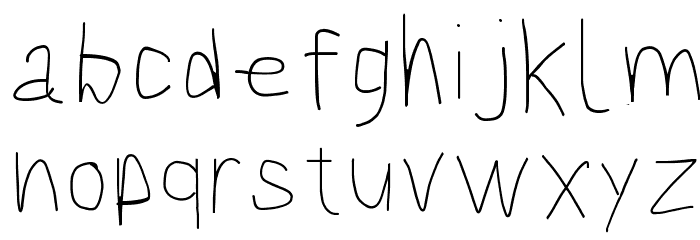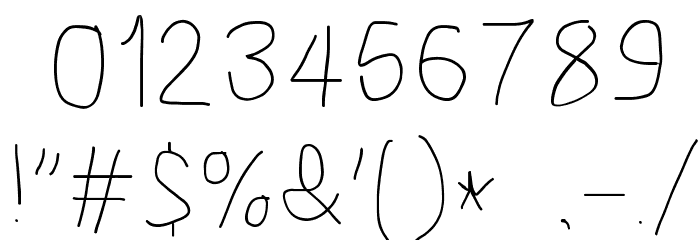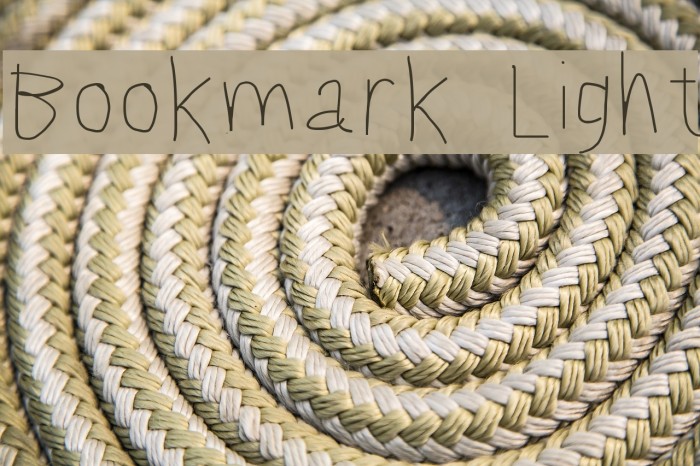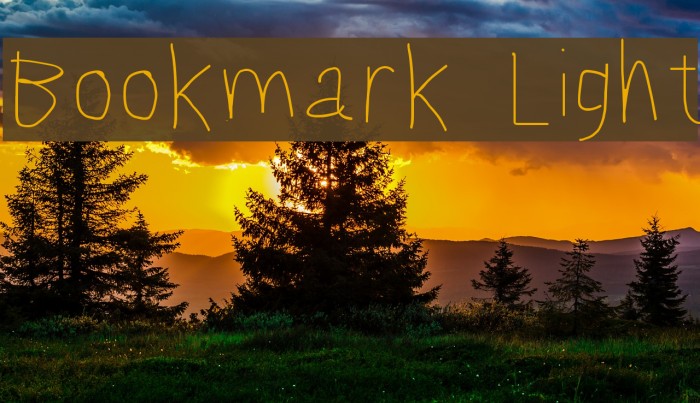
Bookmark Light Font
This font features a playful and casual handwritten style, characterized by its thin, slightly uneven strokes that give it a personal and informal feel. The letters are tall and narrow, with a slight slant that adds to the relaxed aesthetic. The uppercase and lowercase letters maintain a consistent style, with rounded edges and a whimsical touch. Numbers and special characters follow the same design, ensuring a cohesive look across all text elements. The overall appearance is light and airy, making it suitable for projects that require a friendly and approachable tone.
A playful, handwritten font with thin, slightly uneven strokes and a casual style.
- Proposed Projects: Ideal for personal notes, greeting cards, children's books, and informal branding projects.
- Category: Handwritten
- Weight: Light
- Width: Condensed
- Overall Style: Casual
- Use Case: Greeting cards, Informal branding, Personal notes